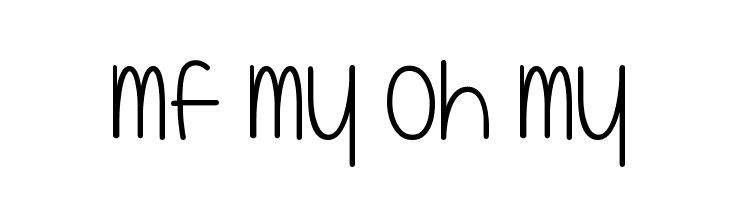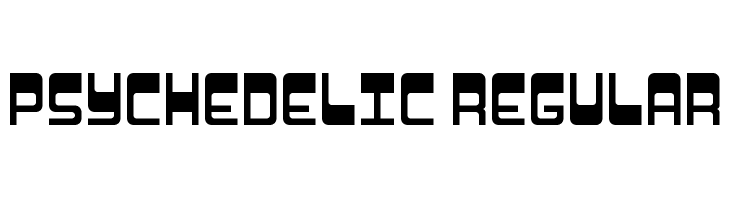
A modern, outline-style font with rounded edges and a tubular appearance.
A bold, italicized font with a modern half-tone effect and geometric structure.
A decorative font inspired by Viking and ancient runic symbols with a mystical, hand-drawn style.
A flowing, cursive script font with elegant, connected letters.
Artistic, abstract display font with hand-drawn illustrations and modernist motifs.
The image contains placeholder boxes instead of a valid font.
A bold, geometric font with a futuristic and digital aesthetic.
A collection of abstract, nature-inspired symbols with high contrast and artistic flair.
Playful, hand-drawn style font.
设计师偏爱 Hi. Outline, Swordlings, Liberty Island Half-Tone Italic, PR Viking Alternates and Kirana Script Regular,因为其造型干净、适用范围广—— 从品牌识别到落地页、海报都能胜任。